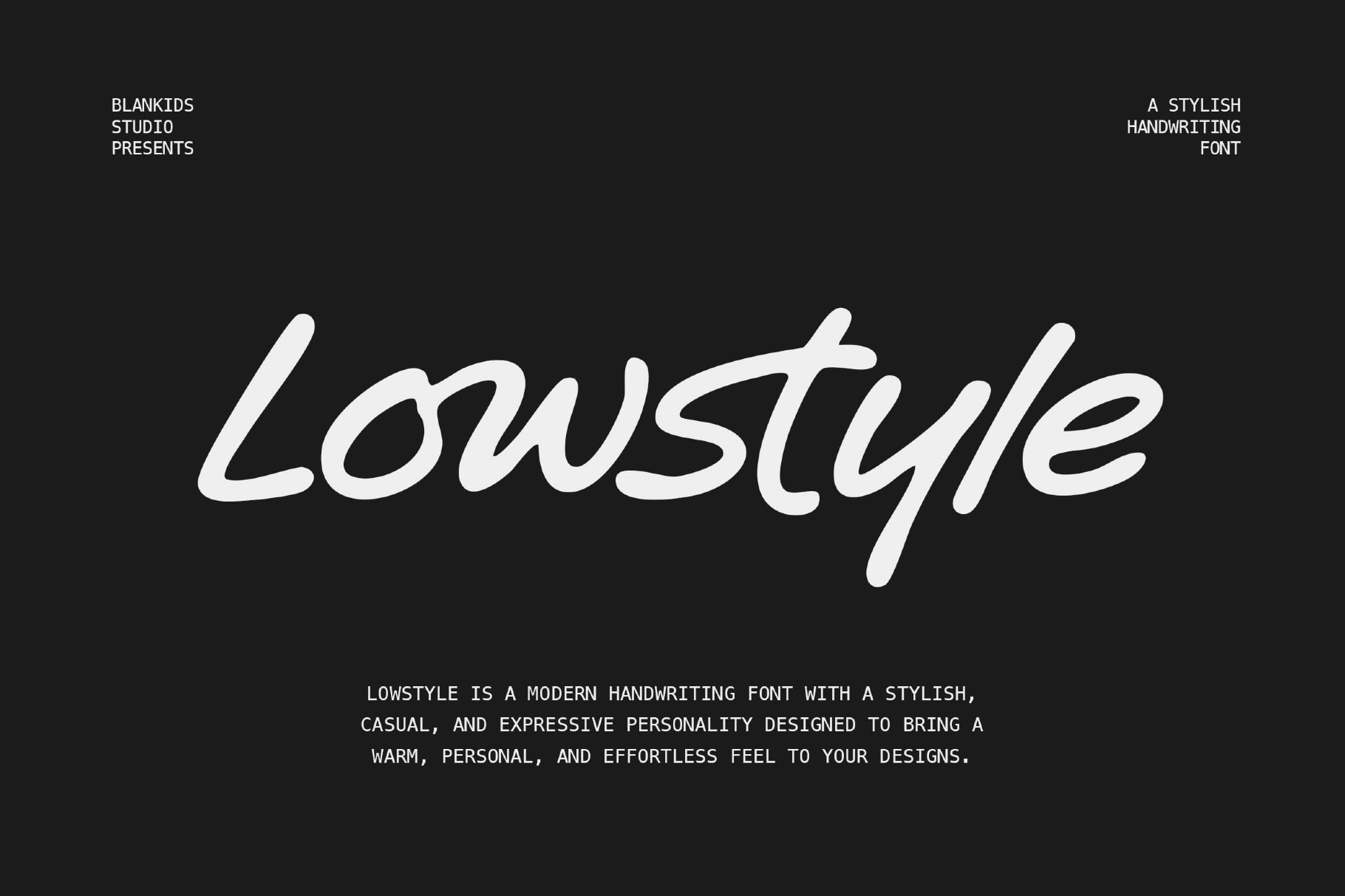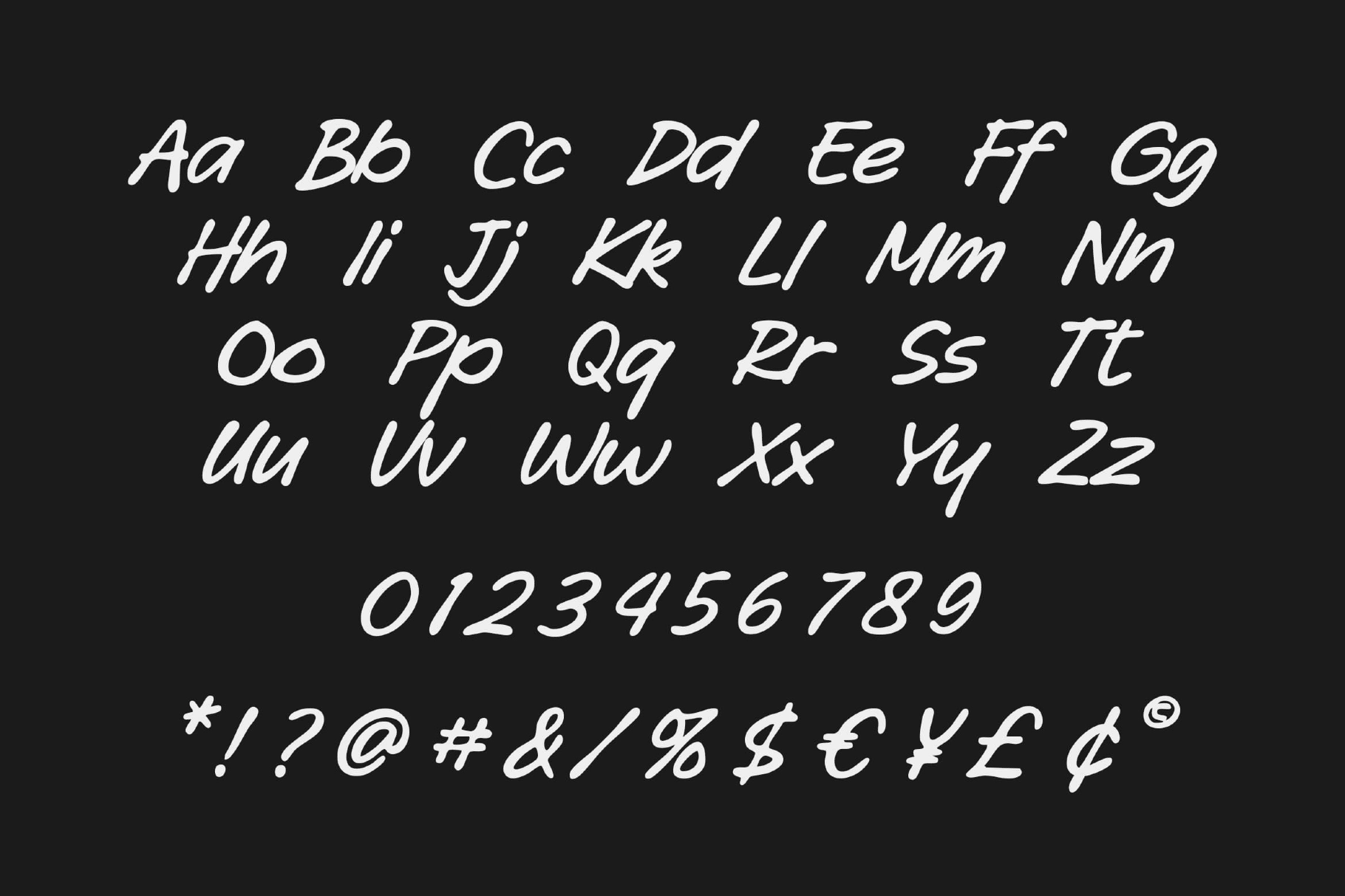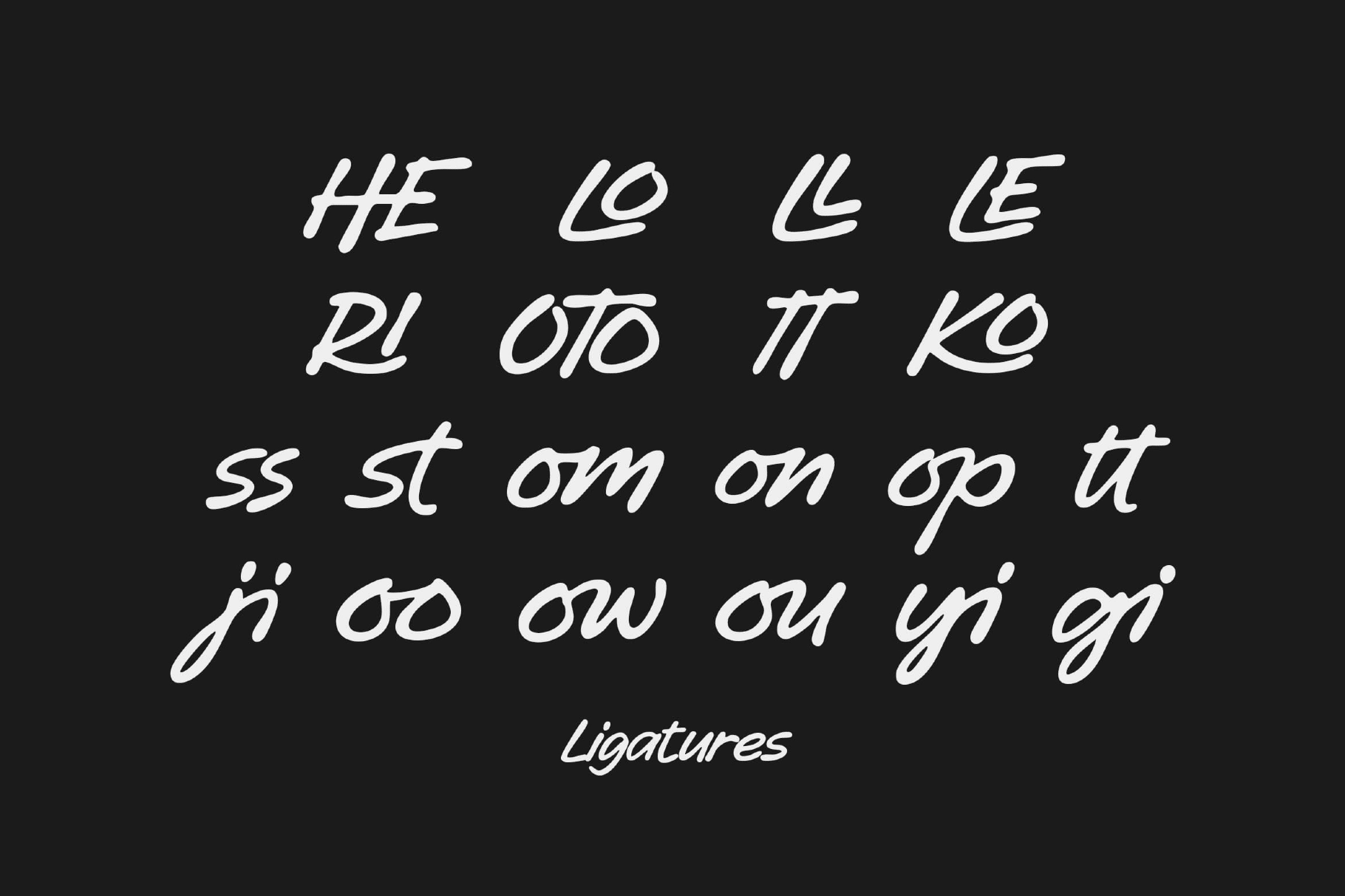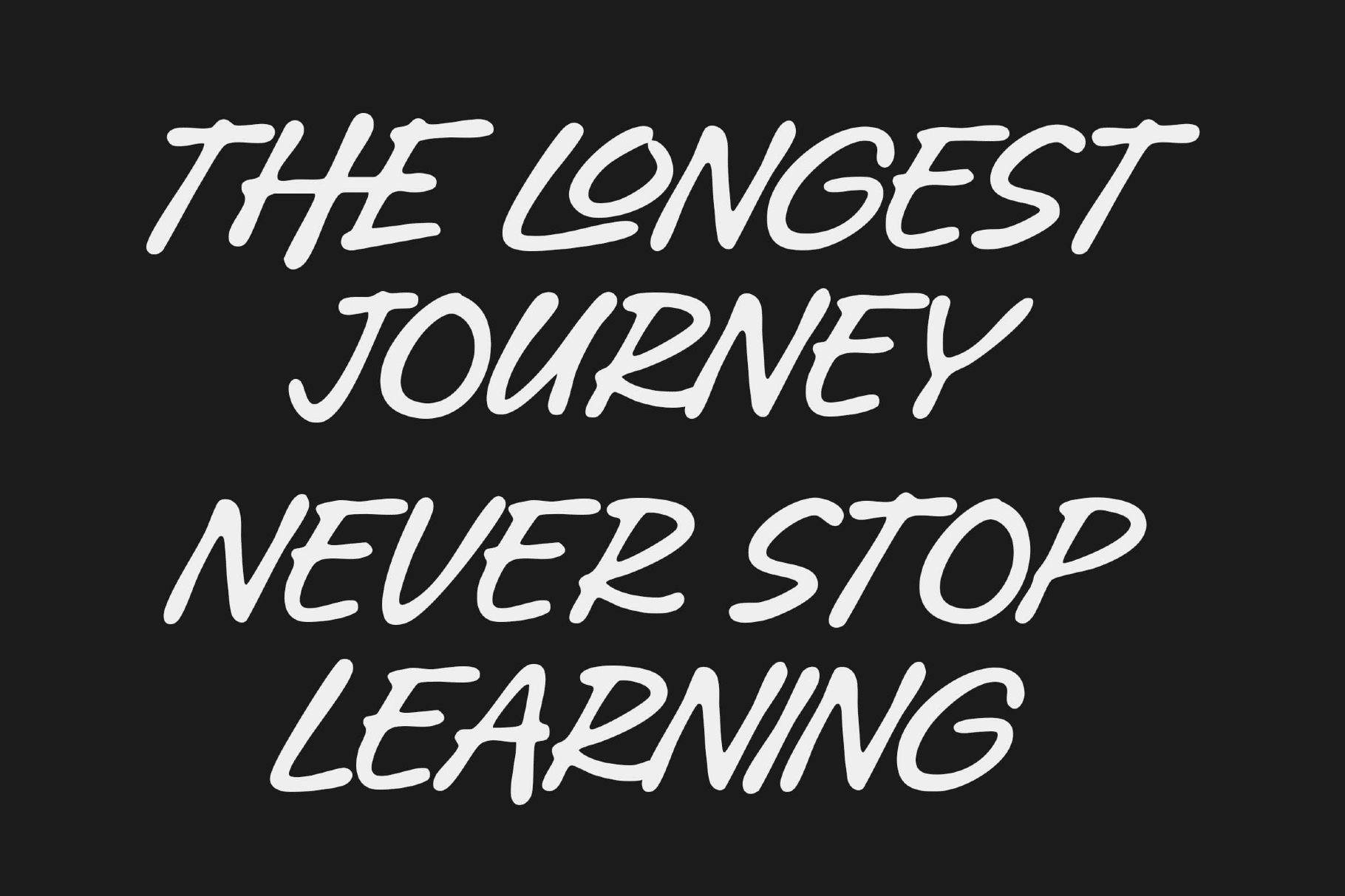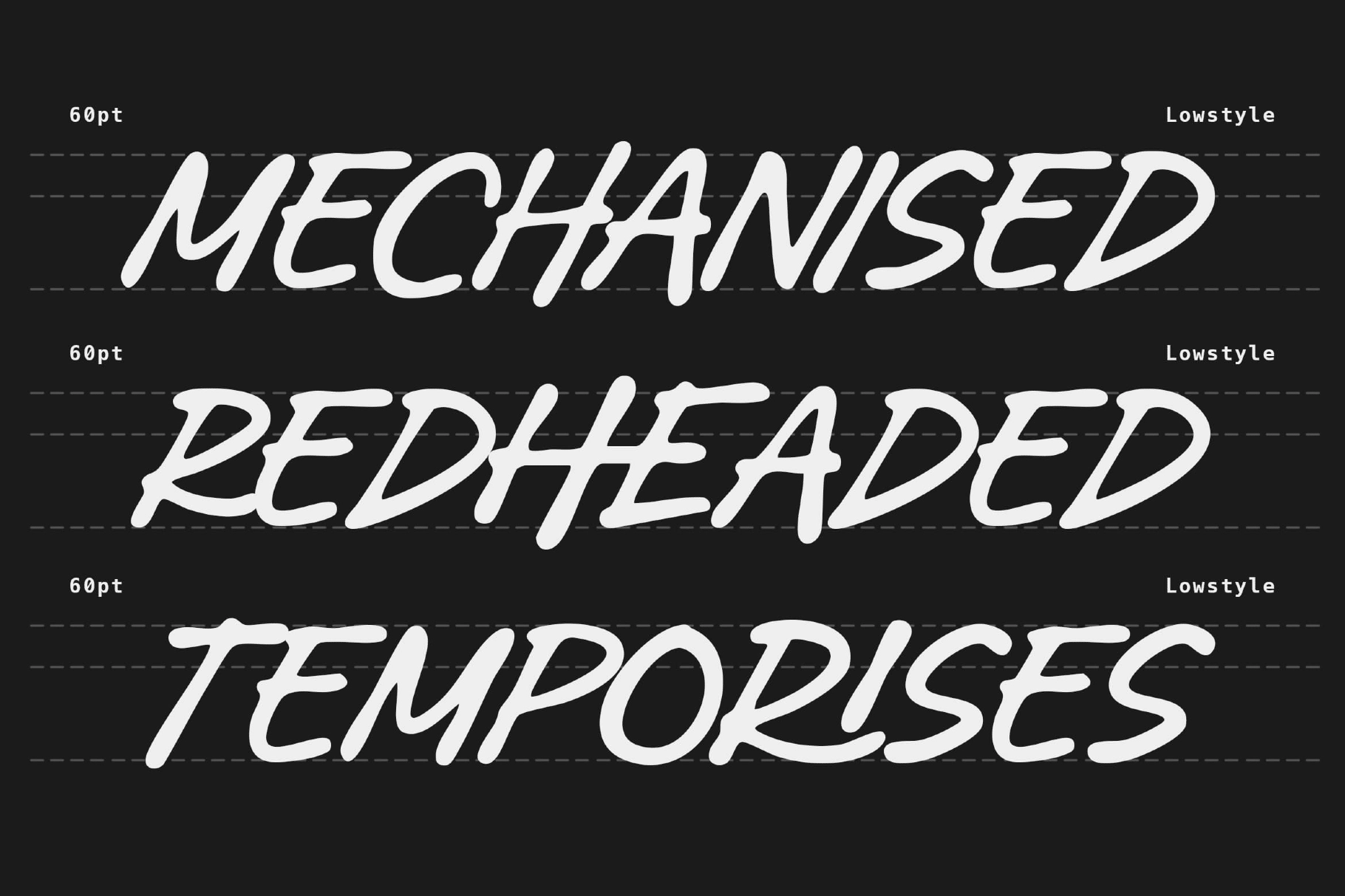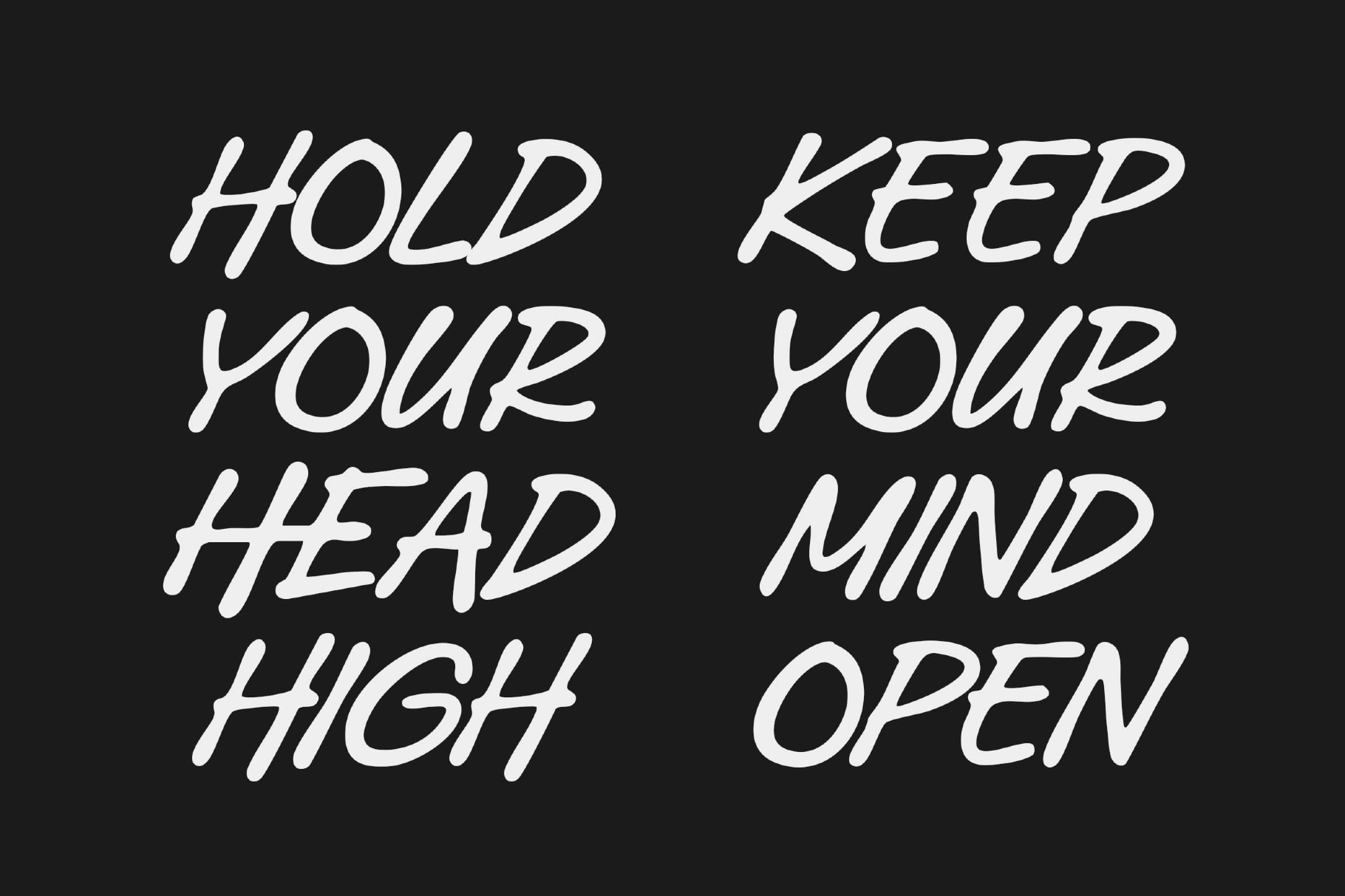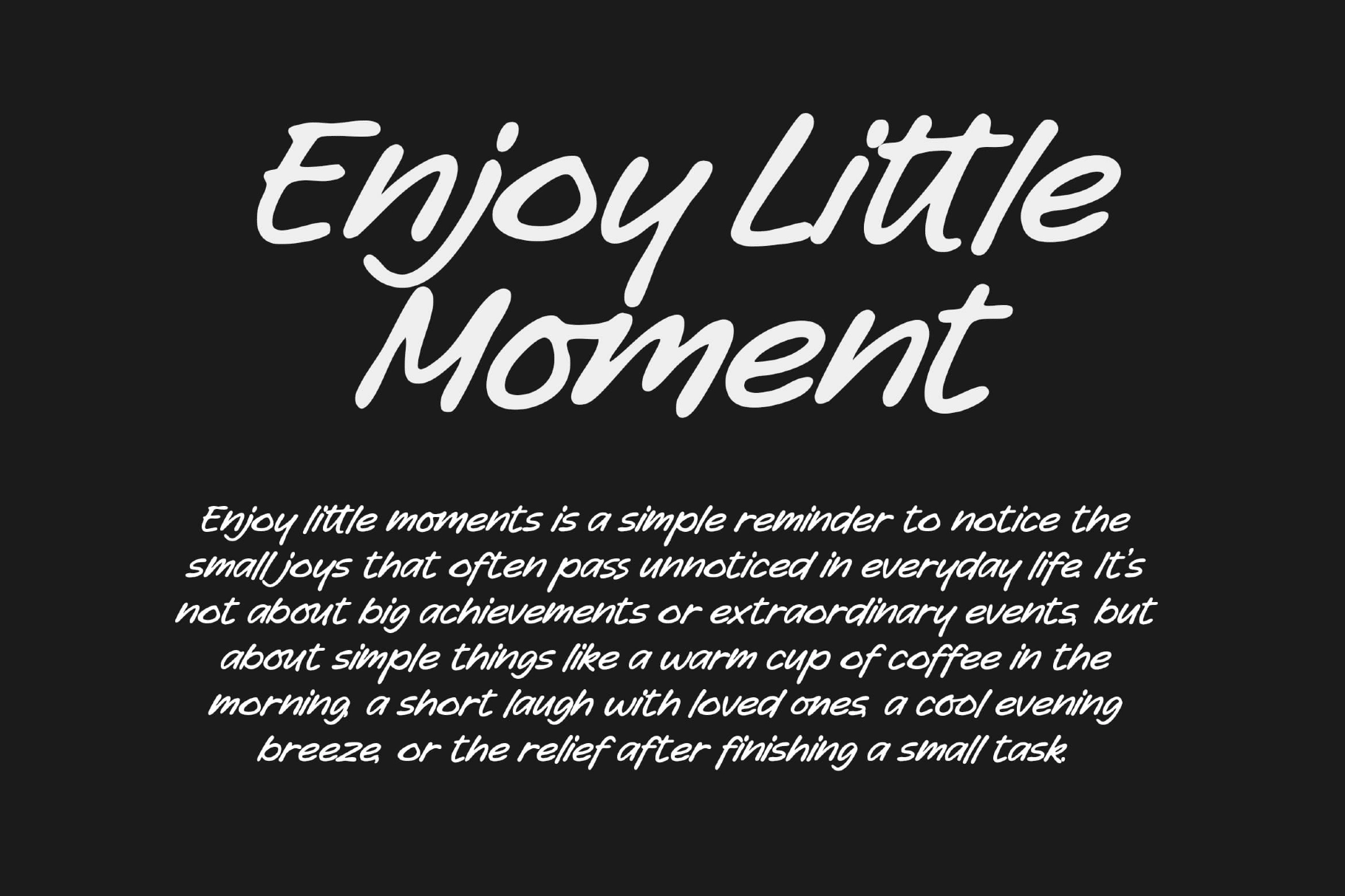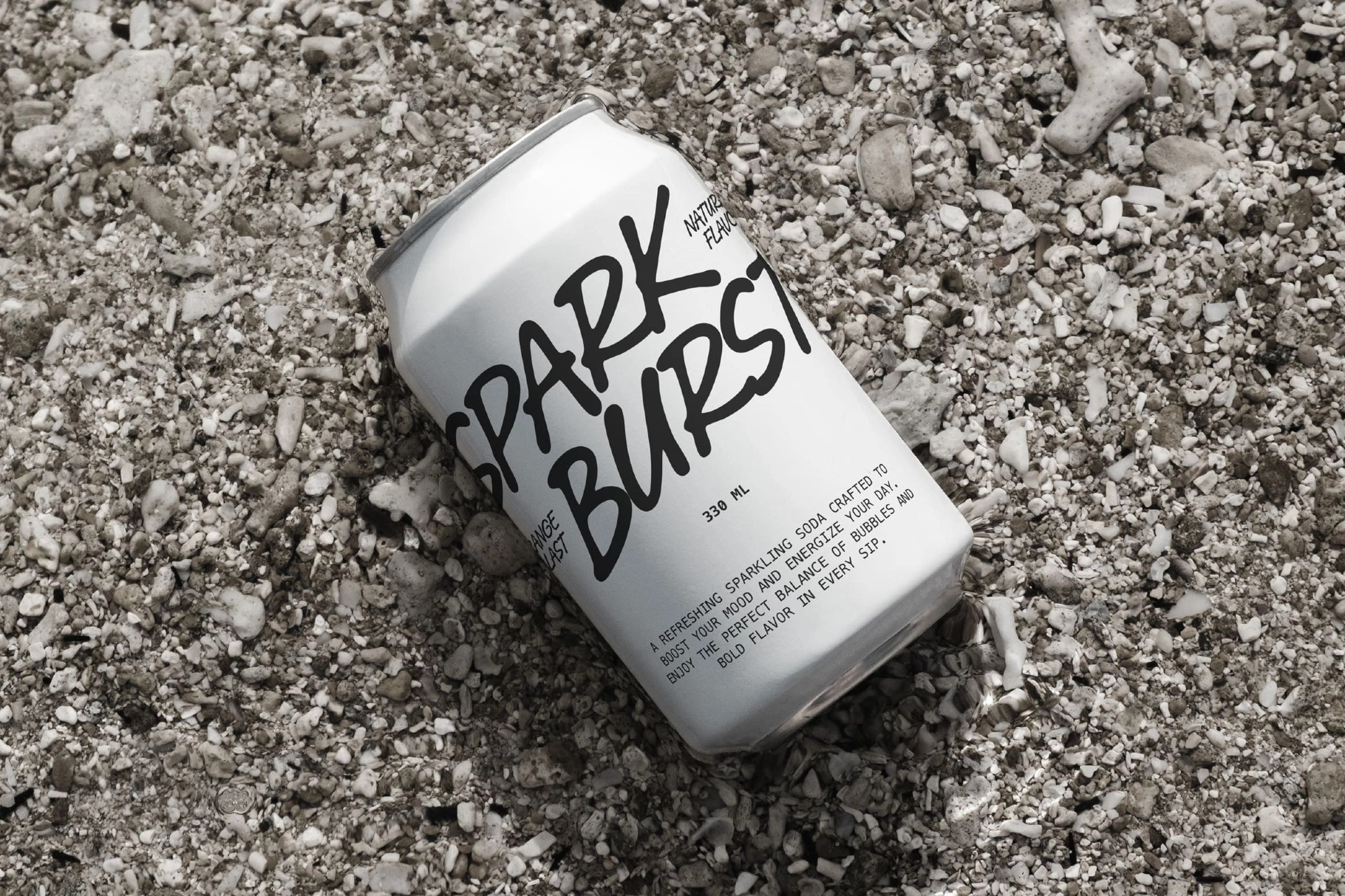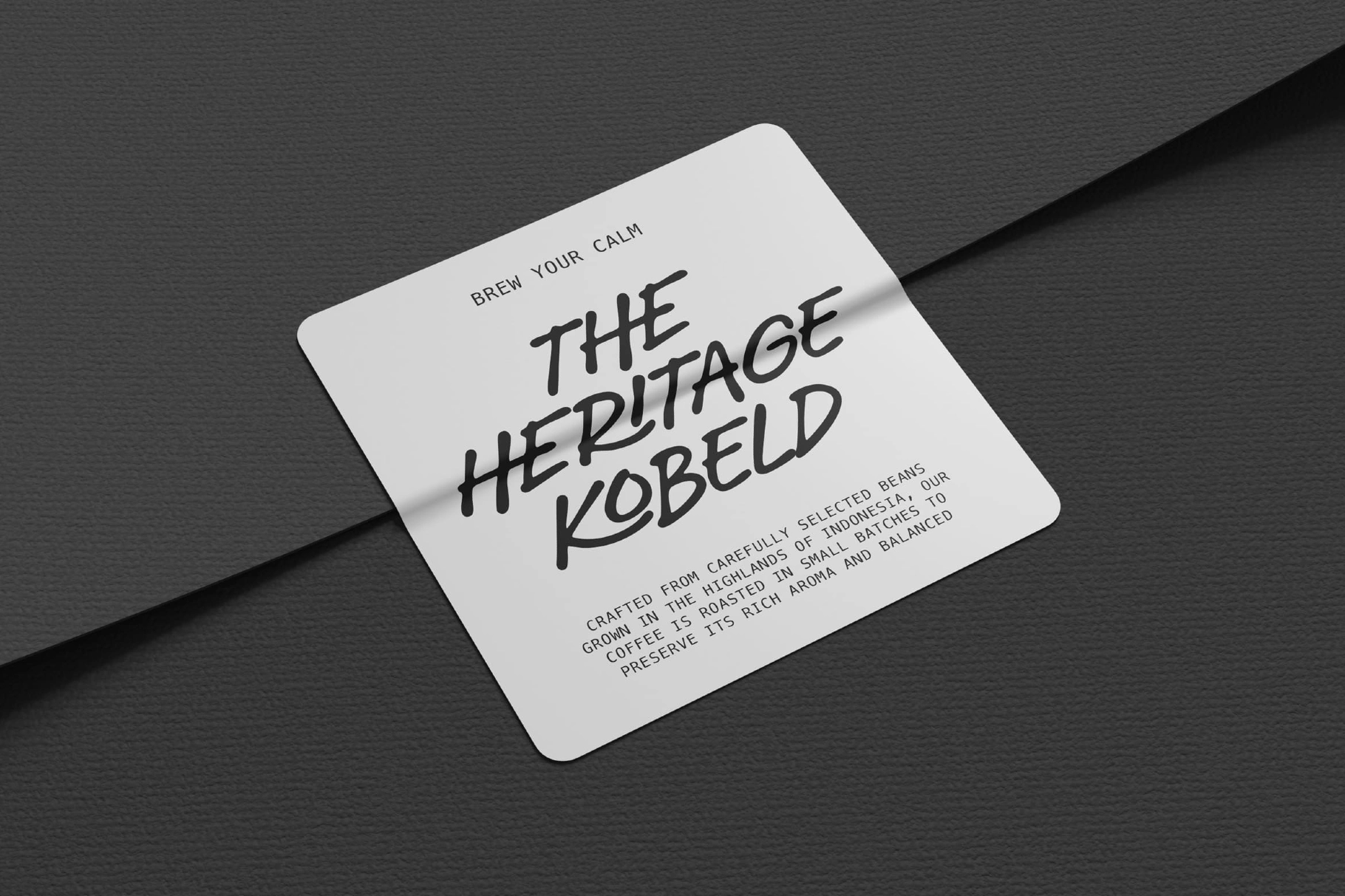
Lowstyle – Stylish Handwriting Font
Lowstyle
Lowstyle – Stylish Handwriting Font is a modern script typeface designed to bring a casual, expressive, and effortlessly stylish feel to your designs. Its smooth strokes and natural handwritten flow make it perfect for projects that need a personal and authentic touch while staying clean and readable.
With a full set of characters and ligatures, Lowstyle gives you the flexibility to create dynamic typography compositions. Whether you're working on quotes, branding, social media, or lifestyle visuals, this font adds warmth and personality to every layout.
- Numbers & punctuation
- Stylish handwritten script with smooth flow
- Ligatures for natural typography combinations